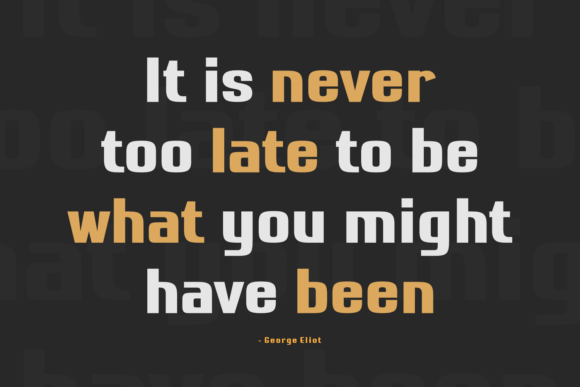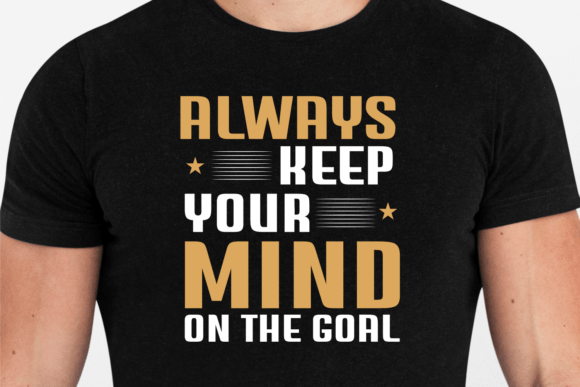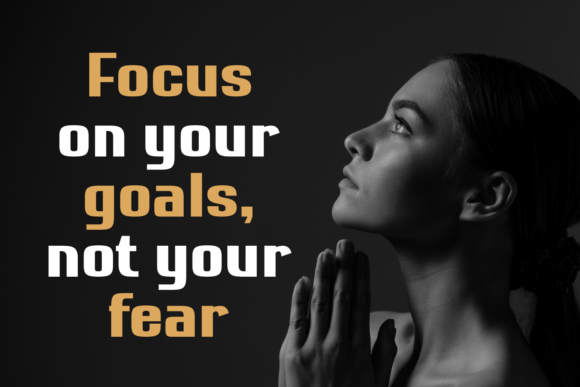
Introduction to Metro Solves Font
Have you ever stared at a blank page, trying to come up with the perfect design concept for your next creative project? The blank space seems daunting, but then it hits you – a bold idea that demands attention and makes a statement. This is where the Metro Solves Font comes in – a game-changing design resource that adds a touch of sophistication and elegance to any project.
As a designer, you know how important it is to have the right tools at your disposal. The Metro Solves Font is a high-quality addition to any design arsenal, offering a sleek and modern sans serif look that’s perfect for high-impact headlines, fashion branding, and lifestyle promotions. Whether you’re working on a free download project or creating a promotional graphic with a transparent background, this font is sure to bring your design to the next level.
Key Features of Metro Solves Font
- High-quality vector design, ideal for creative projects that require a modern and sleek aesthetic.
- Unique characteristics: bold lines, geometric shapes, and a clean typography style, making it perfect for modern and urban designs.
- Perfect for use in logos, branding materials, signage, and other visual elements where a bold and modern look is desired.
Honest Review: Metro Solves Font
I recently came across the Metro Solves Font, a design resource that caught my attention with its high quality and sleek aesthetic. As a designer, I was excited to see if it would be a great fit for my next creative project.
The Metro Solves Font offers a free download, which is always a plus. The font itself is versatile and can be used for a wide range of applications, from branding to typography. I was particularly impressed with the transparent background, which makes it easy to use in combination with other design elements.
- ✨ Works well for modern and minimalist designs
- ✨ Versatile and suitable for various design applications
- ⚠️ Limited character set, which may not be ideal for longer texts
- ⚠️ May not be suitable for more complex designs that require a lot of customization
Overall, I’m impressed with the Metro Solves Font. It’s a great addition to any designer’s toolkit, especially for those working on modern and minimalist projects. While it may have some limitations, I believe it’s a valuable design resource that’s definitely worth considering for your next creative project.
Tips for Getting the Most Out of Metro Solves Font
To get the most out of Metro Solves Font, consider using it in combination with other design elements, such as shapes and icons, to create a unique and creative visual effect. You can also experiment with different font sizes, styles, and colors to fit your high-quality design project.
Metro Solves Font is a versatile design resource that can be used in a variety of creative projects, including business presentations, marketing materials, and graphic designs. Its transparent background makes it easy to place over other design elements or images, making it a great choice for designers and non-designers alike.
Alternatives to Metro Solves Font
Montserrat is a high-quality sans-serif font ideal for creative projects requiring a clean and modern look. It’s a free download and features a transparent background, making it suitable for use on any design resource. Montserrat is a great alternative to Metro Solves Font for projects that require a bold and edgy feel. It’s particularly useful for headlines and titles, adding a touch of sophistication to your design.